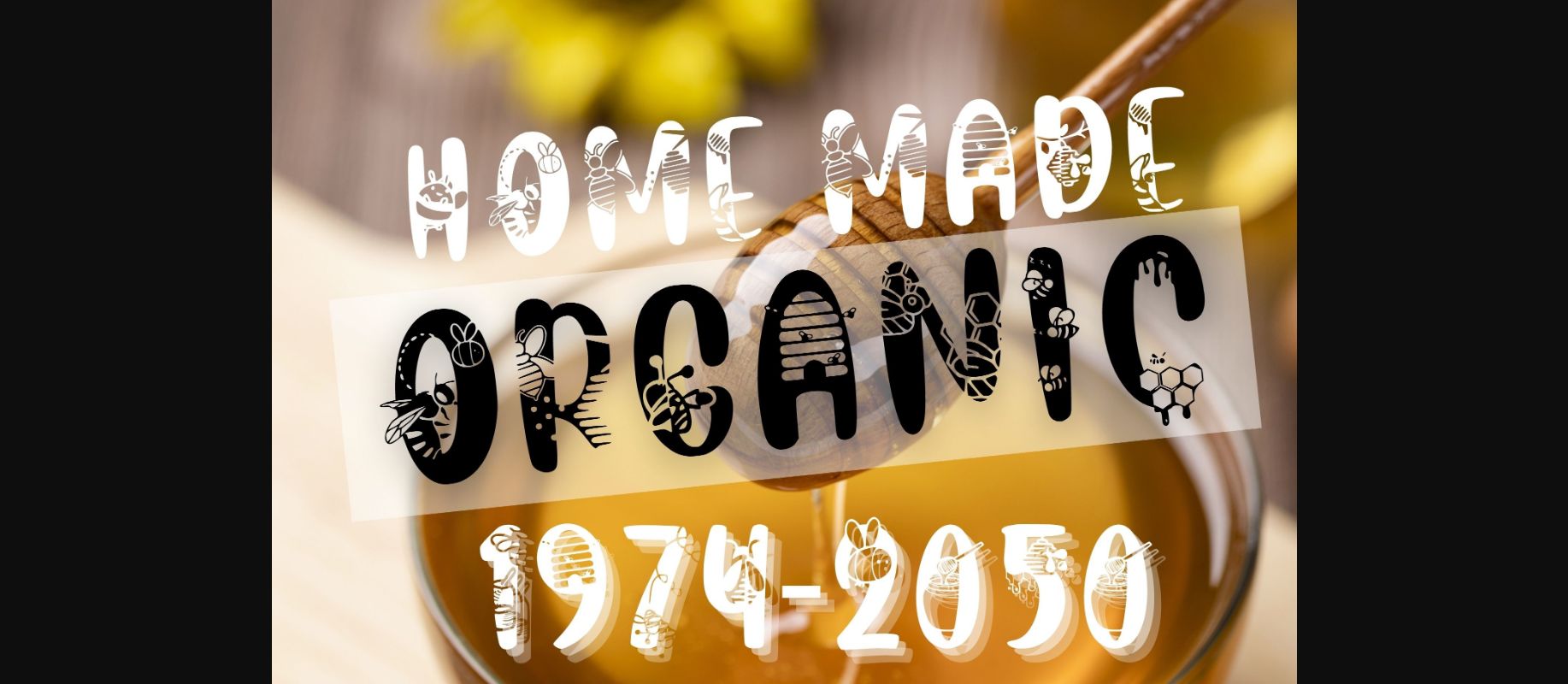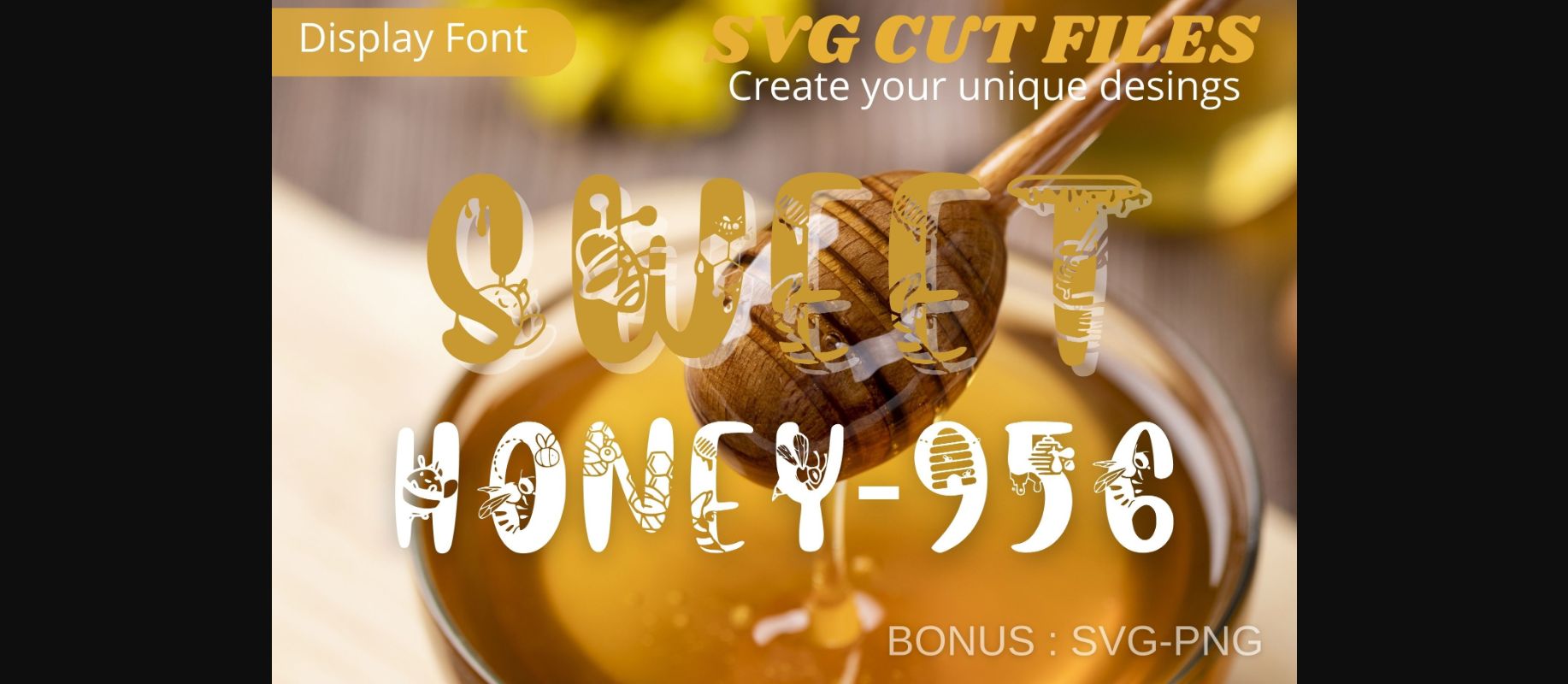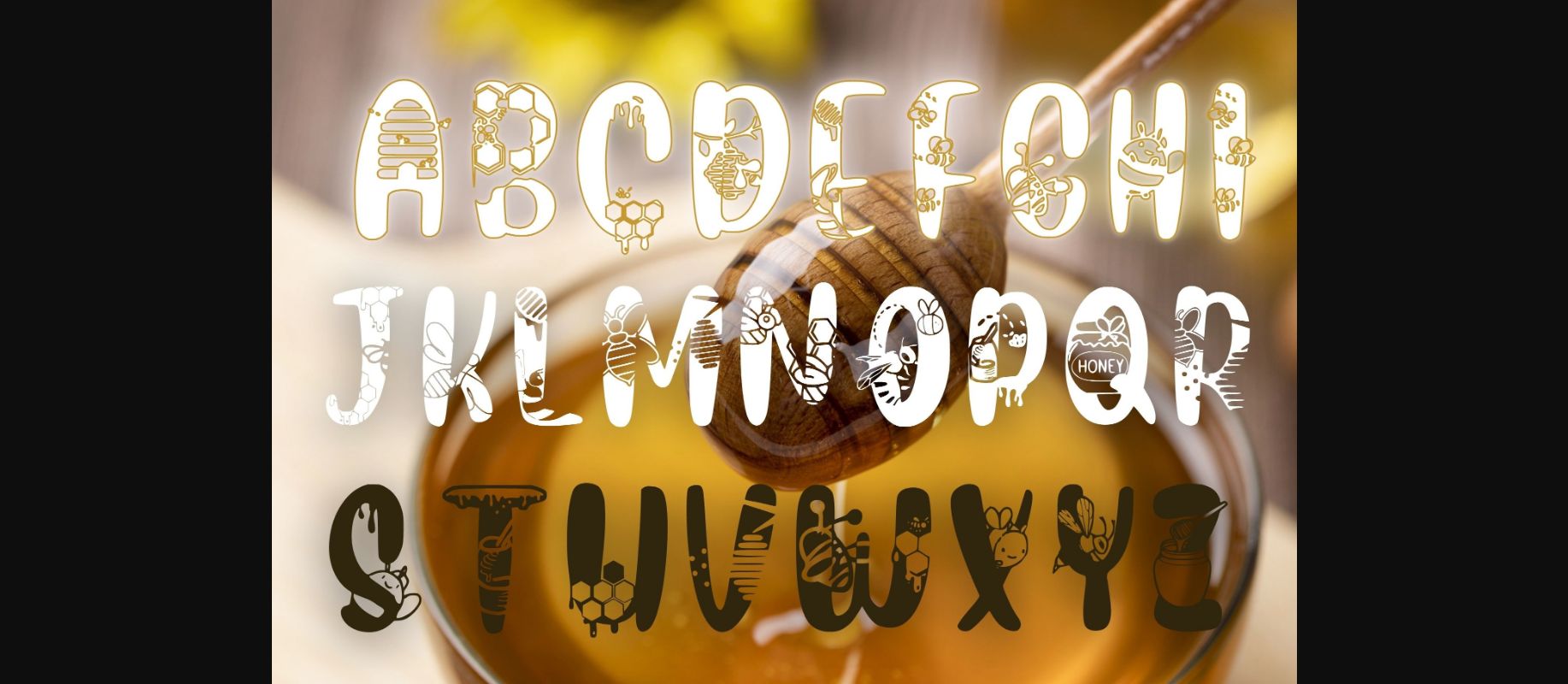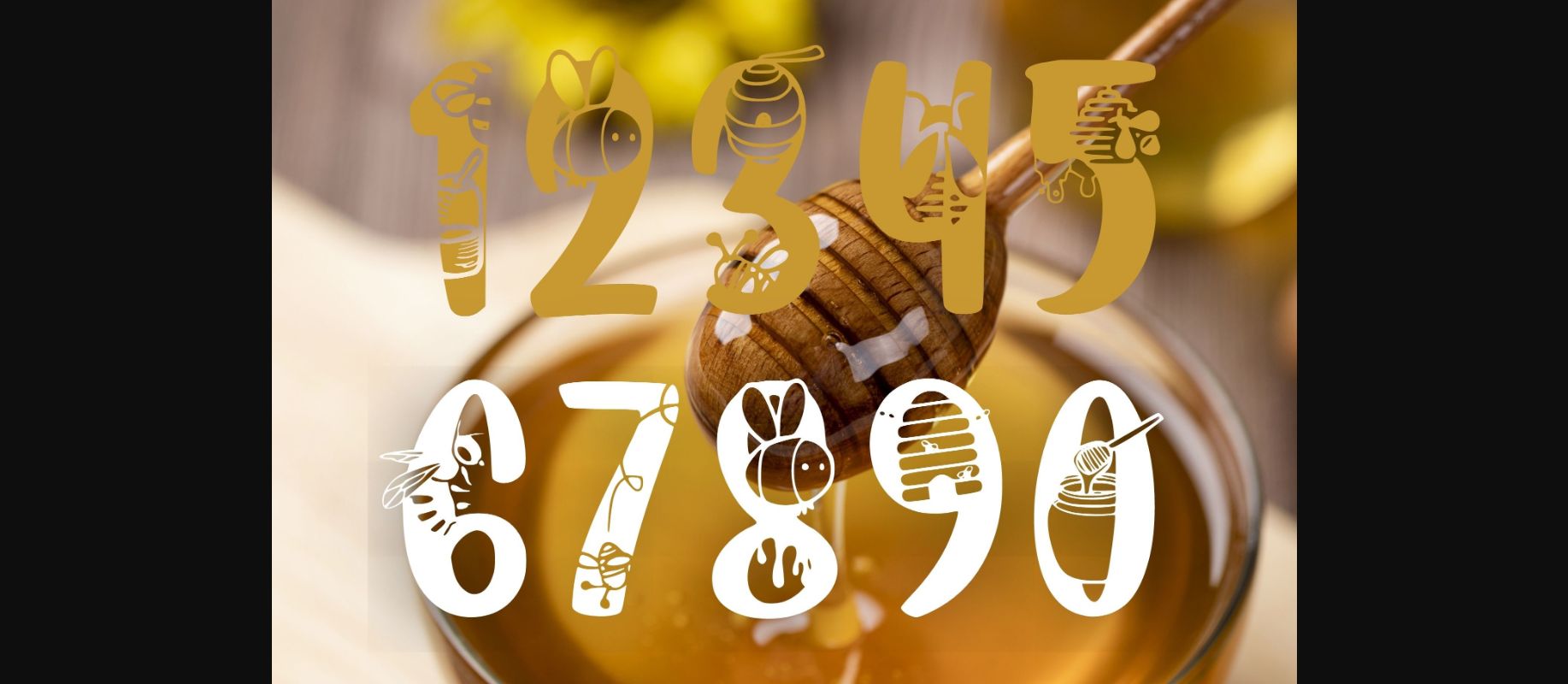
Sweet Honey Font
About Sweet Honey Font
Sweet Honey is a sweet decorative font. You can see playful decoratives with flying little bees, honeycombs, and jars of honey. With this font, your messages will become really super cute. This font is perfect for posters, greeting cards, t-shirts, branding materials, quotes, and any other amazing projects you are working on.